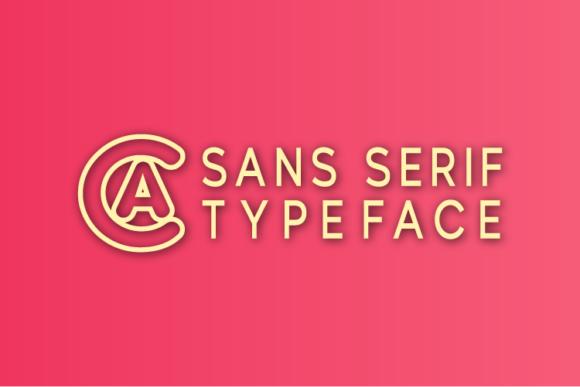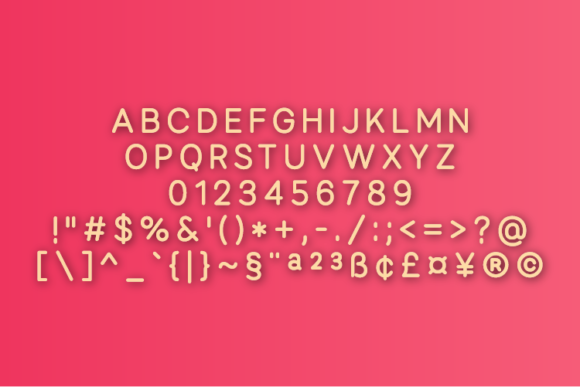
Introducing Deerliona Font: The Ultimate Sans Serif Solution for Creative Projects
Are you tired of using the same old fonts for your design projects? Look no further than Deerliona Font, a minimal and neat sans serif font that’s perfect for adding a touch of elegance and sophistication to your creative ideas. With its clean lines and versatile style, Deerliona is an excellent choice for designers and crafters looking to make their projects stand out from the crowd.
What is Deerliona Font?
Deerliona Font is a modern sans serif font that’s designed to be highly versatile and adaptable. Its minimalist aesthetic makes it perfect for use in a wide range of projects, from branding and advertising to packaging and digital media. Whether you’re working on a logo, brochure, or website, Deerliona Font is sure to make a lasting impression.
Key Features of Deerliona Font
- Minimal and Neat Design: Deerliona Font features a clean and simple design that’s free from unnecessary embellishments. This makes it perfect for use in projects where a clear and concise message is key.
- Sans Serif Style: The sans serif style of Deerliona Font gives it a modern and sleek look that’s perfect for contemporary designs.
- Highly Versatile: Deerliona Font can be used in a wide range of projects, from print materials to digital media.
- Easily Readable: The clear and simple design of Deerliona Font makes it easy to read, even at small sizes.
Benefits of Using Deerliona Font
So why choose Deerliona Font for your next project? Here are just a few benefits of using this amazing font:
- Stand Out from the Crowd: With Deerliona Font, you can add a touch of elegance and sophistication to your projects and make them stand out from the competition.
- Perfect for Modern Designs: The sans serif style and minimalist aesthetic of Deerliona Font make it perfect for modern designs and contemporary projects.
- Enhance Your Brand: By using Deerliona Font in your branding and marketing materials, you can create a consistent and professional look that will help to build trust and recognition with your audience.
How to Use Deerliona Font
- Use it in Headings and Titles: The bold and sleek design of Deerliona Font makes it perfect for use in headings and titles.
- Experiment with Different Sizes: Deerliona Font looks great at a wide range of sizes, from small and delicate to large and bold.
In conclusion, Deerliona Font is a versatile and elegant sans serif font that’s perfect for adding a touch of sophistication to your design projects. With its clean lines, minimalist aesthetic, and highly readable design, Deerliona Font is an excellent choice for designers and crafters looking to make their projects stand out from the crowd. So why wait? Download Deerliona Font today and start creating amazing projects that will leave a lasting impression on your audience!